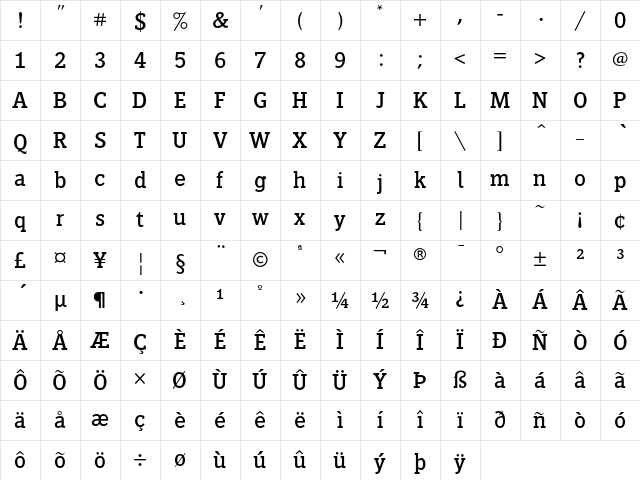
Siseriff LT Std Regular Regular
Foundry: Linotype Library GmbH
Designer: Bo Berndal
Design Context for Siseriff LT Std Regular
Siseriff LT Std Regular carries the refined structure of traditional serif typography, with bracketed terminals and considered proportions that communicate credibility and craft. Its slender proportions lend an understated elegance to any composition.